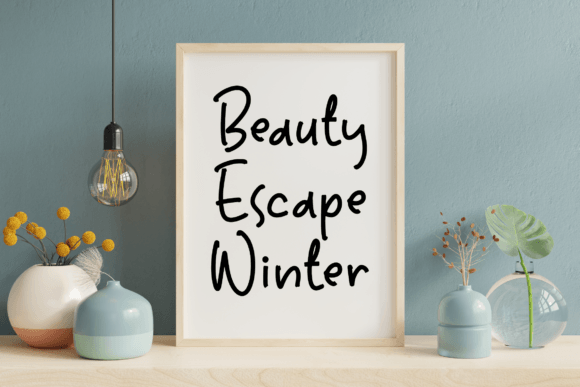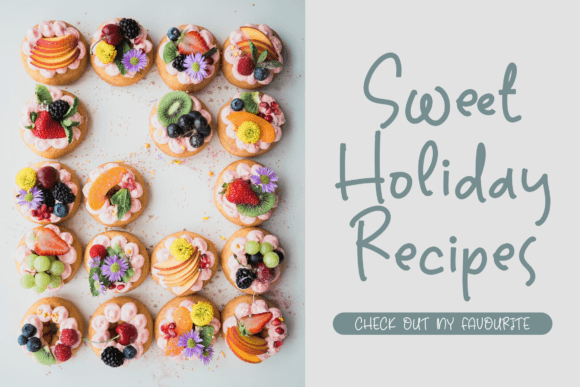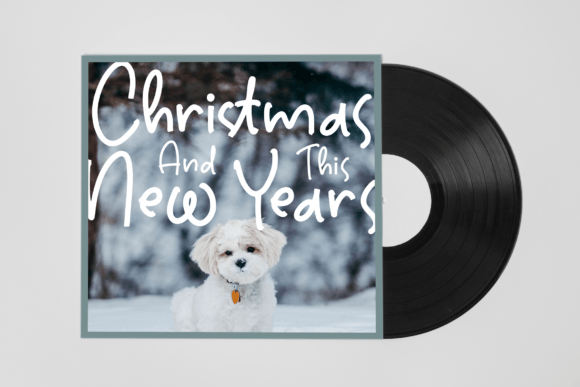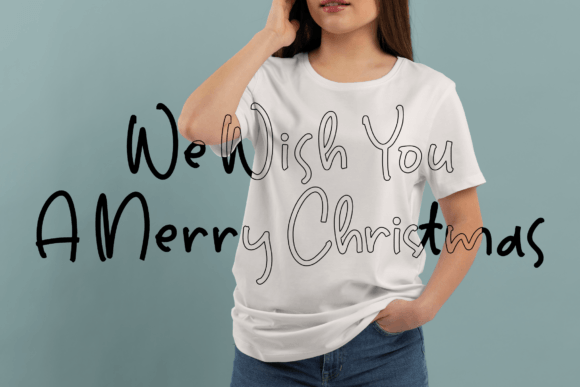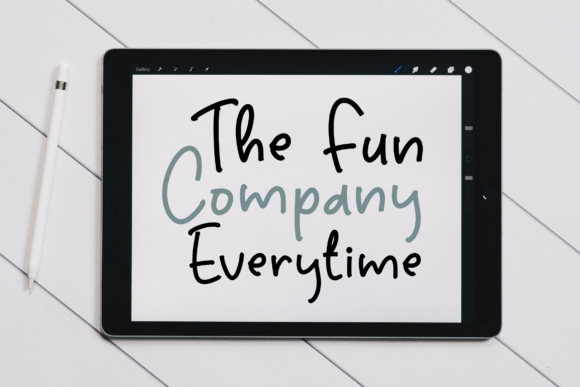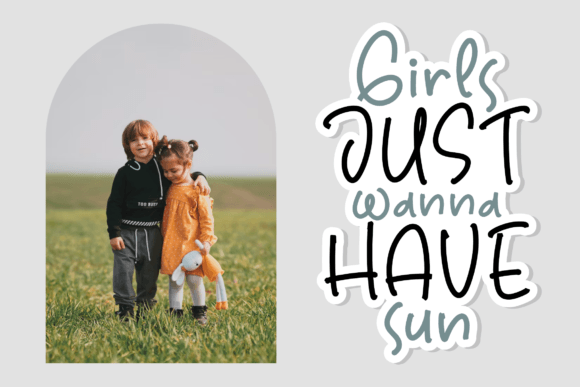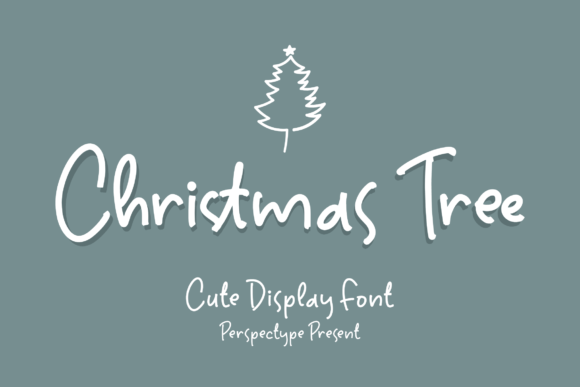
Christmas Tree Font: A Cute Handwritten Font for Your Holiday Projects
Are you looking for a festive and fun font to add a touch of holiday cheer to your designs? Look no further than the Christmas Tree font! This cute handwritten font is perfect for any project that needs a beautiful script taste, from logos and branding projects to homeware designs, product packaging, and more.
What is Christmas Tree Font?
Christmas Tree font is a unique and charming handwritten font that is designed to capture the spirit of the holiday season. With its playful and whimsical feel, this font is sure to add a touch of festive fun to any project. Whether you’re designing a logo, creating a poster, or making a greeting card, Christmas Tree font is the perfect choice.
Features of Christmas Tree Font
So, what makes Christmas Tree font so special? Here are just a few of its features:
• Cute and playful design: Christmas Tree font has a fun and whimsical design that’s perfect for holiday projects.
• Handwritten feel: This font has a beautiful, handwritten feel that’s sure to add a personal touch to your designs.
• Versatile: Christmas Tree font can be used for a wide range of projects, from logos and branding to homeware designs, product packaging, and more.
• Easily readable: Despite its playful design, Christmas Tree font is still easily readable, making it perfect for use in a variety of contexts.
Uses for Christmas Tree Font
So, what can you use Christmas Tree font for? The possibilities are endless! Here are a few ideas to get you started:
• Logos and branding projects: Add a touch of holiday cheer to your logo or branding project with Christmas Tree font.
• Homeware designs: Use Christmas Tree font to create festive homeware designs, such as wrapping paper, gift tags, and more.
• Product packaging: Add a personal touch to your product packaging with Christmas Tree font.
• Mugs and quotes: Create fun and festive mugs and quotes with Christmas Tree font.
• Posters and shopping bags: Use Christmas Tree font to create eye-catching posters and shopping bags.
• T-shirts and book covers: Add a touch of holiday cheer to your t-shirts and book covers with Christmas Tree font.
• Name cards and invitation cards: Use Christmas Tree font to create beautiful name cards and invitation cards.
• Greeting cards and labels: Create festive greeting cards and labels with Christmas Tree font.
• Photography and watermark: Add a touch of holiday cheer to your photography with Christmas Tree font.
Why Choose Christmas Tree Font?
So, why should you choose Christmas Tree font for your holiday projects? Here are just a few reasons:
• Unique and festive design: Christmas Tree font has a unique and festive design that’s sure to stand out.
• Easily customizable: This font is easily customizable, making it perfect for use in a variety of contexts.
• High-quality design: Christmas Tree font is designed to high-quality standards, ensuring that it looks great in any project.
If you’re looking for a cute and festive font to add a touch of holiday cheer to your designs, look no further than Christmas Tree font. With its playful and whimsical feel, this font is perfect for any project that needs a beautiful script taste. Whether you’re a designer, crafter, or simply someone who loves the holiday season, Christmas Tree font is a great choice.